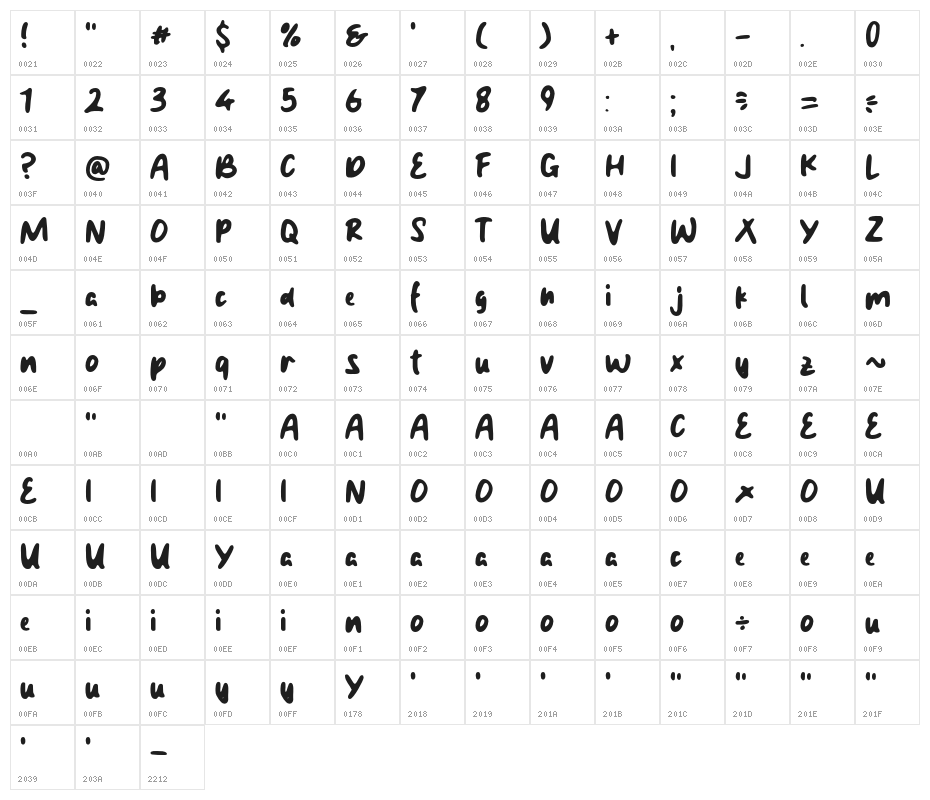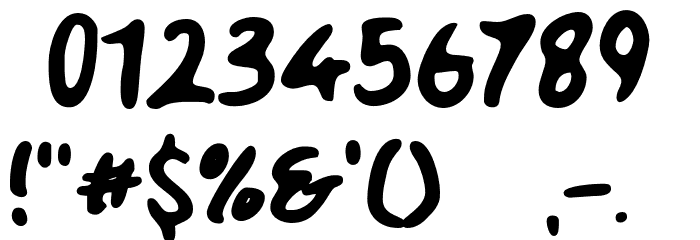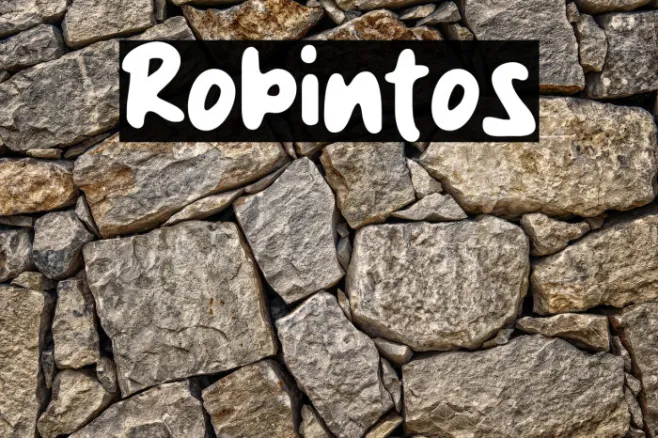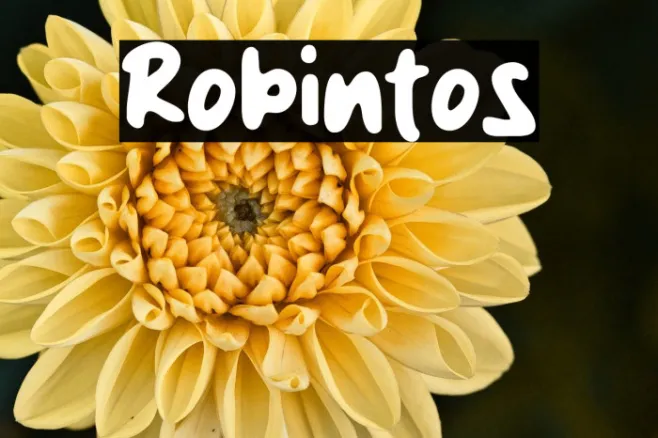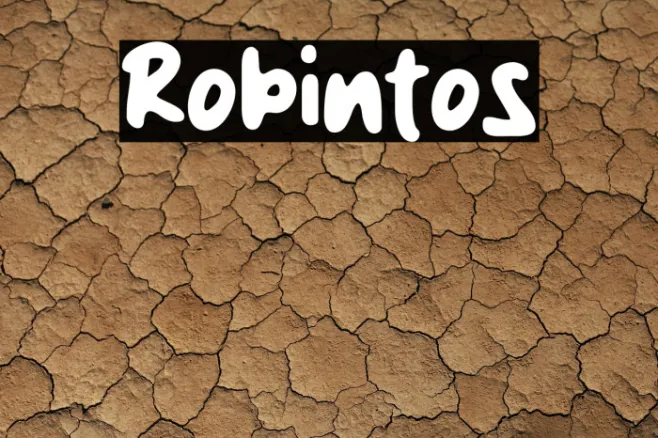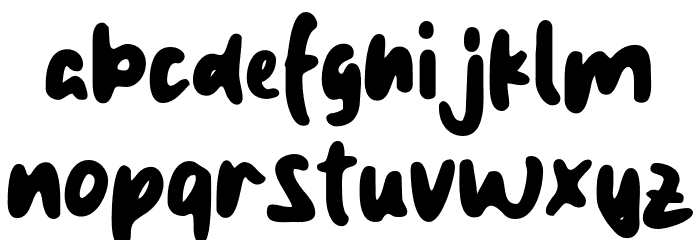
Robintos Font
Robintos Description
This font features a bold, handwritten style with a playful and casual appearance. The characters are rounded and slightly irregular, giving it a friendly and approachable feel. The uppercase and lowercase letters maintain a consistent style, with smooth curves and a slightly exaggerated thickness that adds to its charm. The numbers and special characters are equally bold and maintain the same whimsical quality, making them stand out effectively. This font is perfect for projects that require a personal touch or a sense of informality.
| Overall Style | Casual |
| Use Case | Logos, Headlines, Informal Text |
| Proposed Projects | Ideal for greeting cards, children's books, playful branding, and social media graphics. |